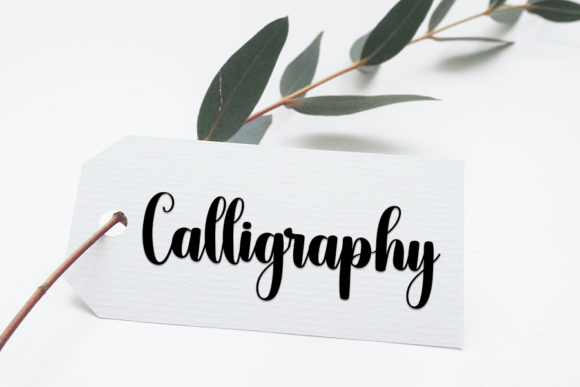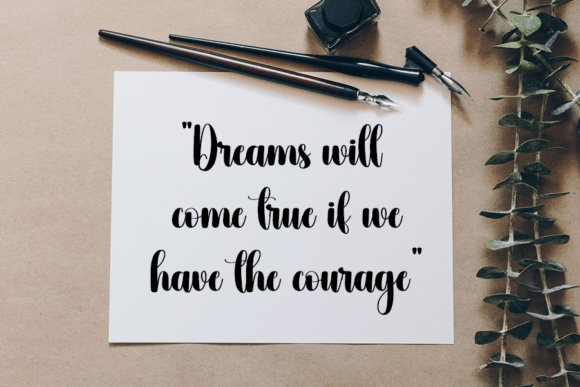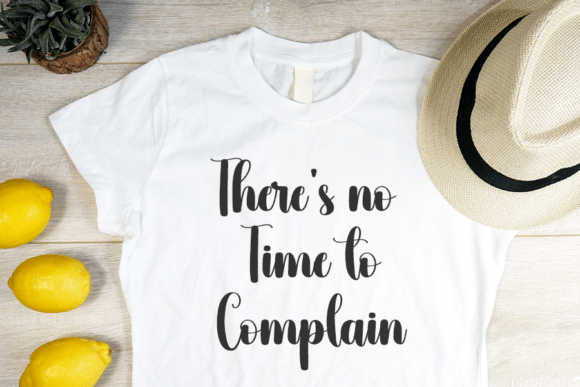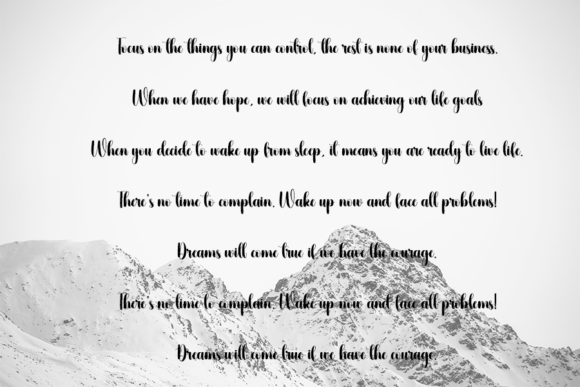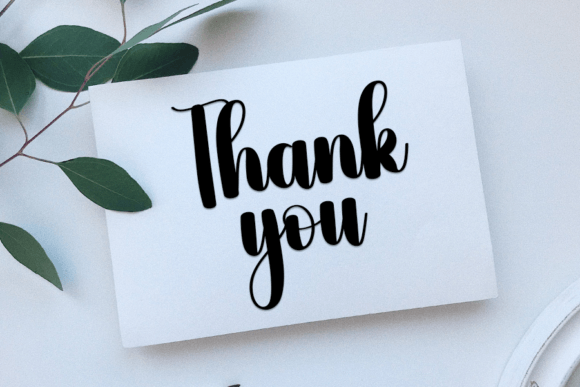
The Sweet Spot: Discovering the Charm of Candy Font
I’ll never forget the time I was working on a project for a client who wanted a custom invitation for their daughter’s birthday party. I had all the design elements ready – the colors, the graphics, the overall aesthetic – but I was stuck on finding the perfect font. That’s when I stumbled upon Candy, a delicate handwritten font that instantly captured the whimsical and playful vibe I was going for. In this article, I’ll share my experience with Candy Font, its features, and how to make the most of it in your designs.
An Honest Review of Candy Font
Candy Font has quickly become one of my go-to fonts for creative projects. Here’s what I love about it:
- ✨ Delicate and elegant handwritten style
- ✅ Highly versatile for various design applications, from letters and invitations to food products and titles
- 💕 Wide range of OpenType features, glyphs, and stylistic alternates to add a personal touch
Of course, no font is perfect, and Candy has a few quirks:
- 🤔 Some characters may appear a bit narrow or cramped, requiring adjustments for optimal readability
- ⚠️ Limited support for non-English languages, so make sure to check compatibility before use
The Story Behind Candy Font
Candy Font was designed by a talented typographer who wanted to create a font that would evoke the sweetness and playfulness of childhood. Inspired by vintage candy wrappers, antique letters, and whimsical illustrations, Candy Font was carefully crafted to bring a touch of magic to your designs.
| Font Name | Candy Font |
| Author | ade studio |
| Is Candy Font suitable for body text? | While Candy Font is beautiful for titles, headings, and short paragraphs, it may not be the best choice for long-form body text due to its delicate and cursive nature. |